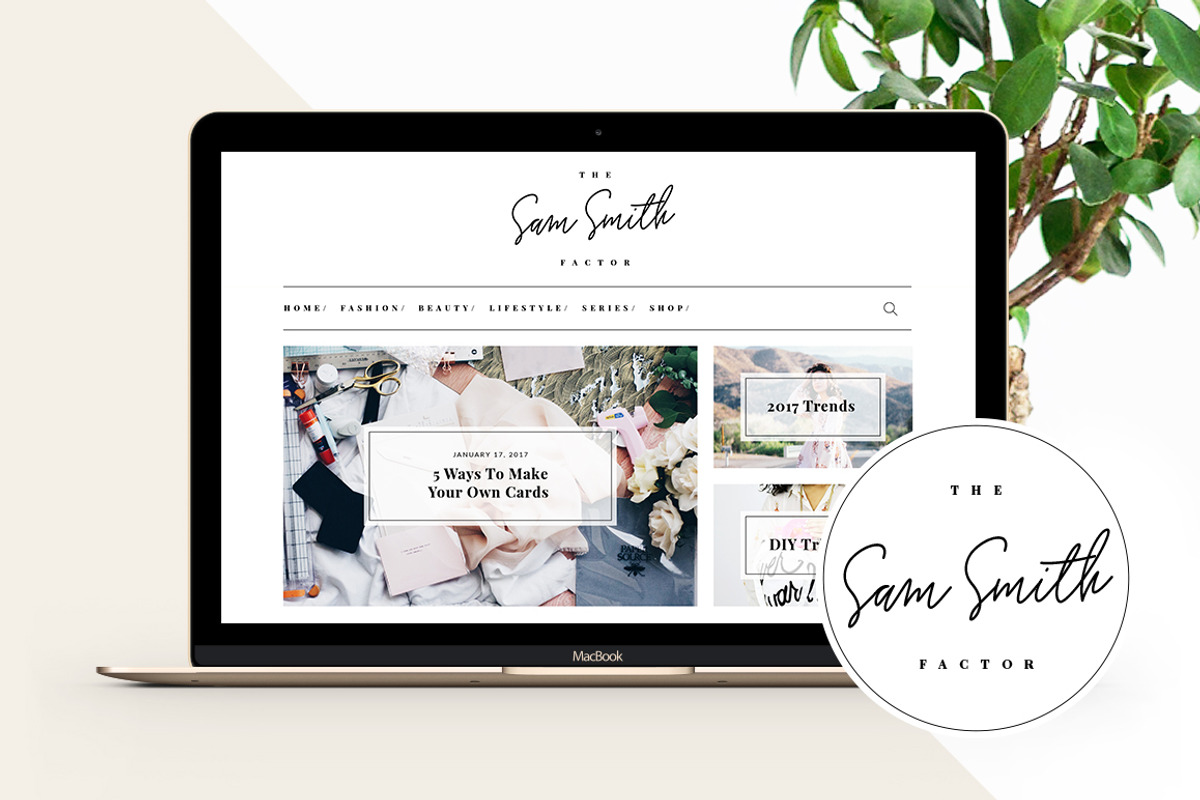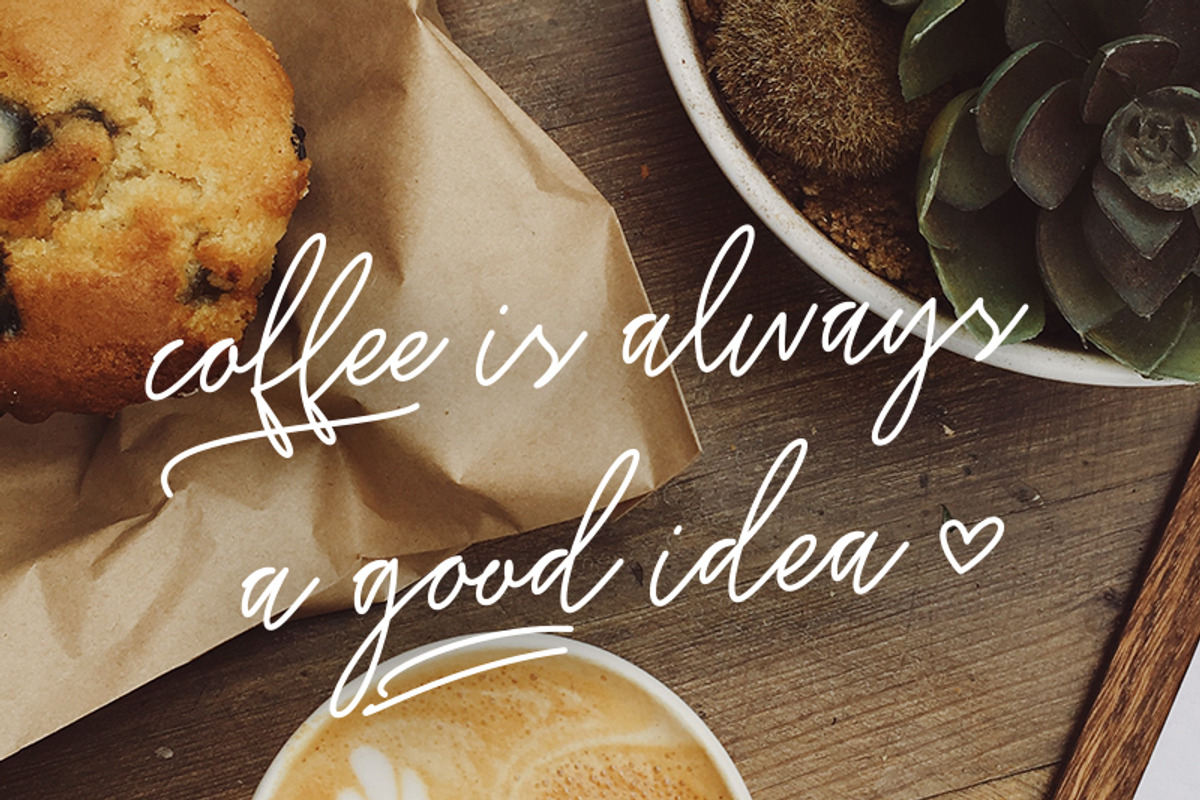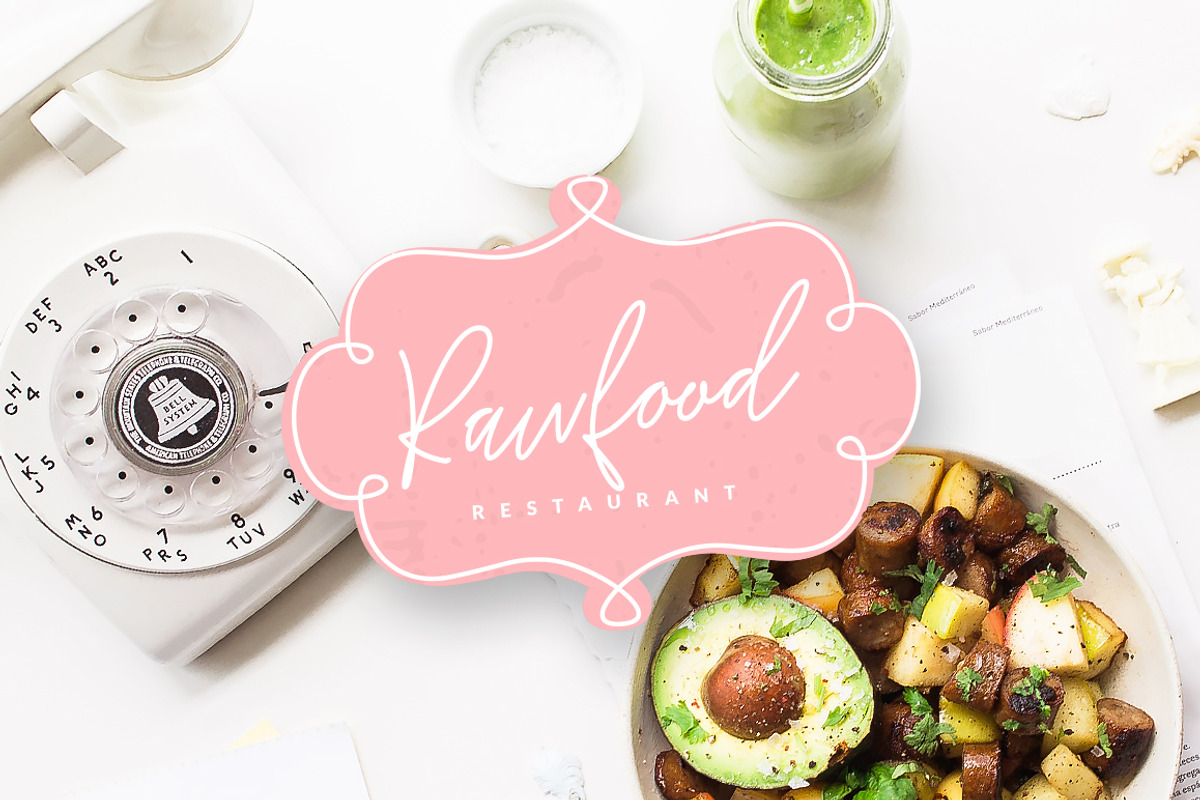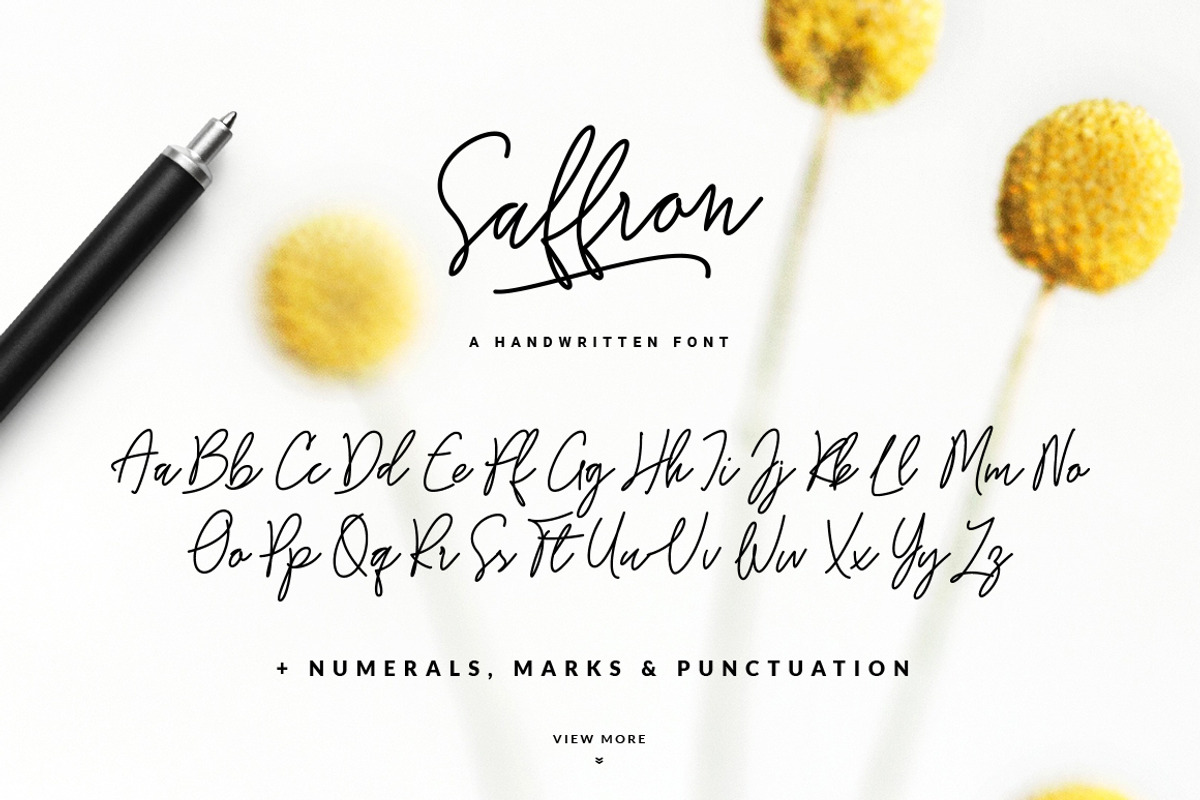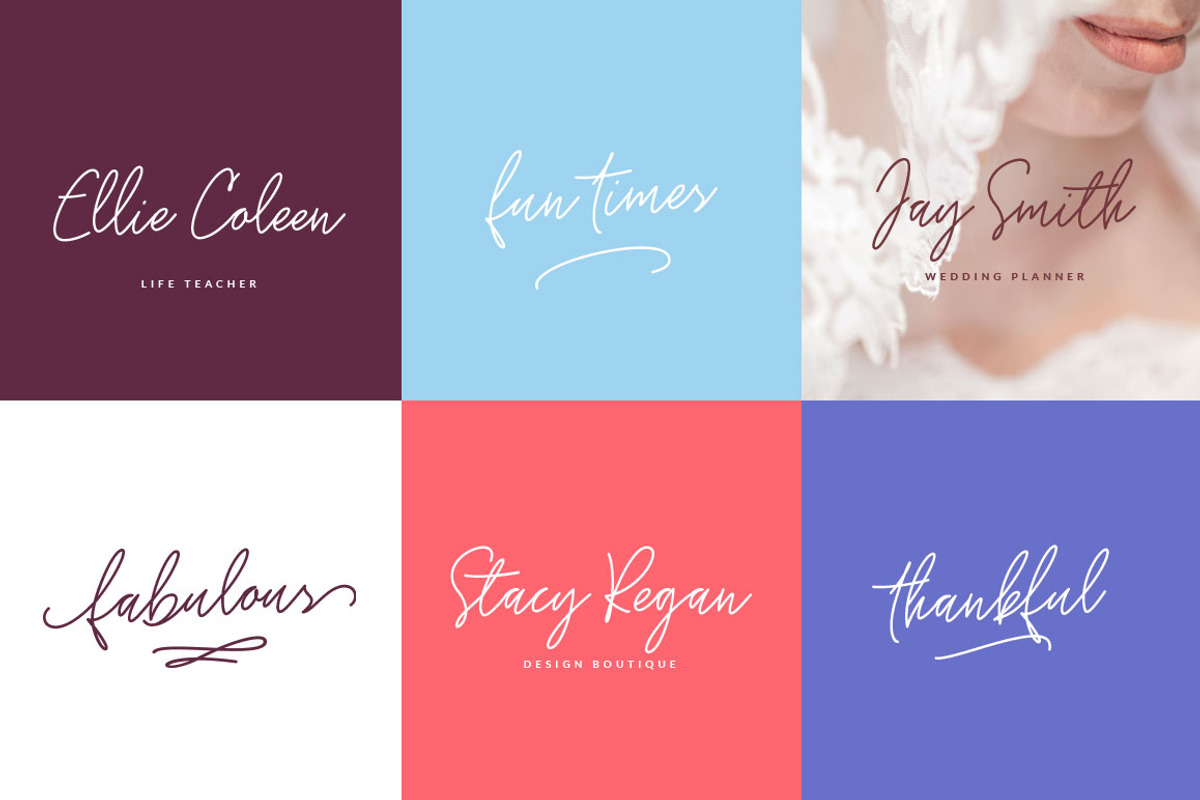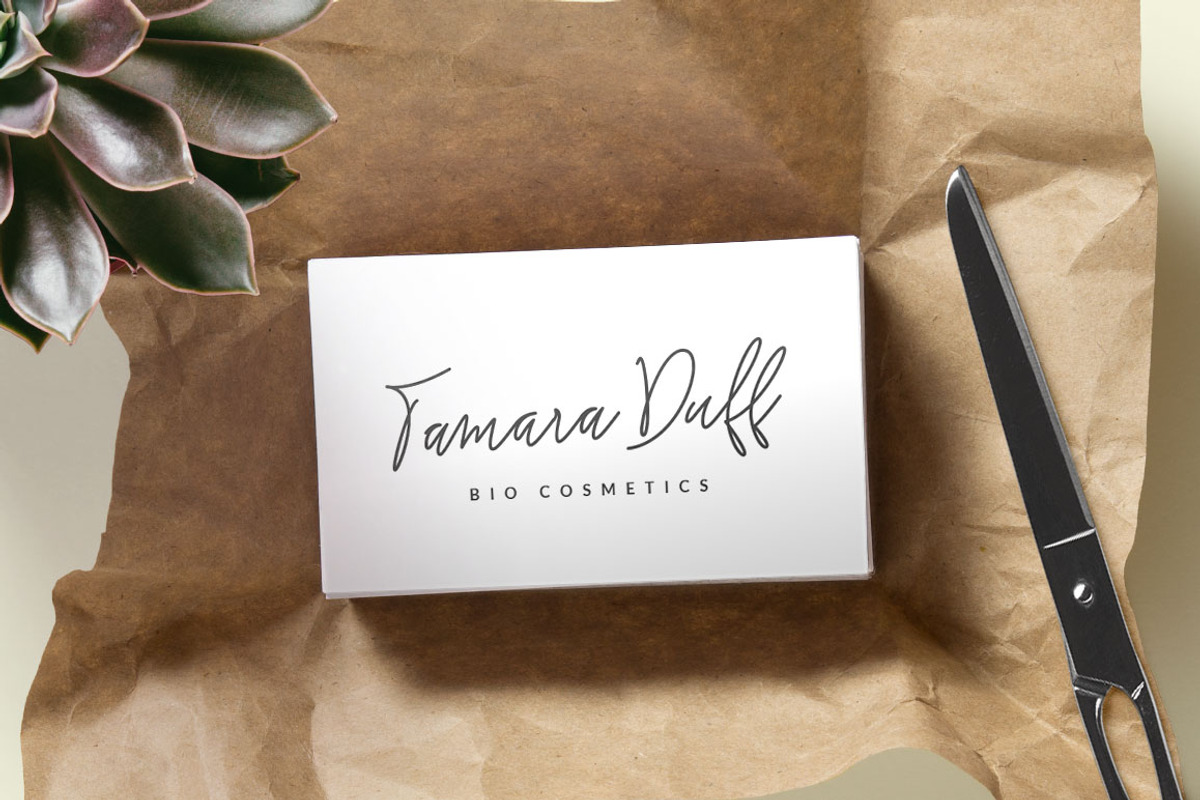
Saffron Handwritten Font
Saffron Handwritten Font by VladCristea is a font selected for branding, posters, packaging, typography.
- Saffron comes with upper and lowercase Basic Characters, Numbers, Marks and Punctuation.
- As a feature you have also the standard Ligature, Alternates (simple, initial and end) and Swashes.
Why Saffron Handwritten Font is worth a look
Saffron Handwritten Font by VladCristea fits naturally into Branding, posters, packaging, typography.